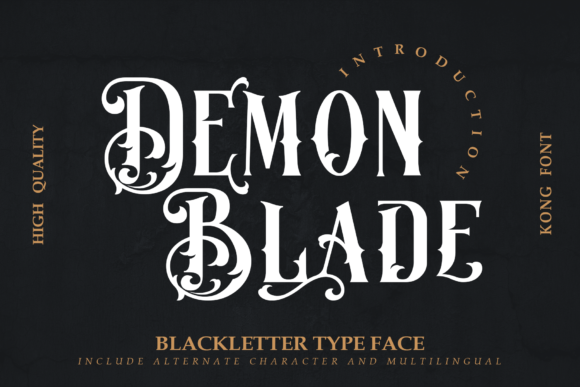
Introducing Demon Blade Font, the ultimate vintage and playful blackletter font designed for crafters and designers! This captivating font, created by Freebies, is the perfect choice for those seeking the best font for a vintage aesthetic. With its unique blend of elegance and playfulness, Demon Blade Font is sure to elevate your creative projects to new heights.
Crafted with meticulous attention to detail, Demon Blade Font exudes an undeniable charm that captures the essence of a bygone era. Its mesmerizing curves and intricate strokes add a touch of sophistication to any design, making it a must-have for those who appreciate the art of typography.
Unleash your imagination and let Demon Blade Font be your creative companion. Its versatility knows no bounds, making it perfect for a wide range of projects. From logo designs and branding to invitations and packaging, this font adds a touch of nostalgia and authenticity, leaving a lasting impression on your audience.
Created by the renowned Kong Font Studio, Demon Blade Font is a true masterpiece that combines the best of vintage aesthetics with modern design sensibilities. Its rich history and timeless appeal make it a valuable asset for any designer or creative enthusiast.